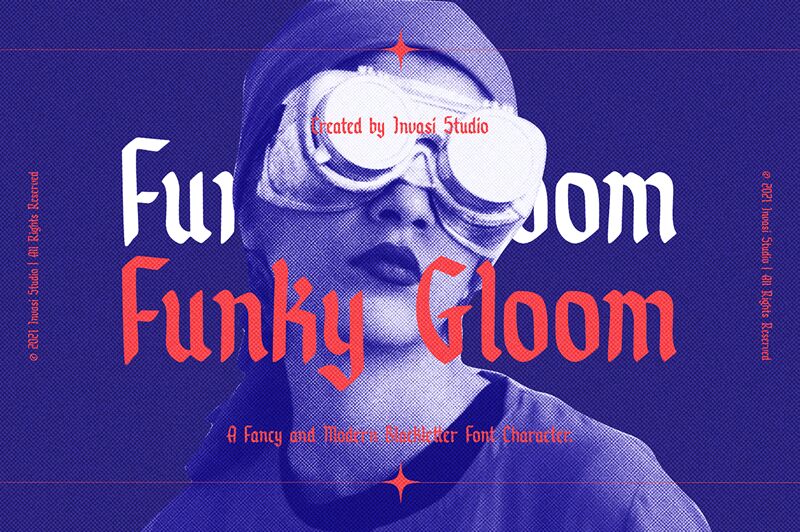
Funky Gloom, designed by Invasi Typework, is a modern gothic font that will add a touch of edginess to any project. With its semi-light weight and condensed width, this font is perfect for headlines and logos that need to grab attention. Use it on album covers for heavy metal bands or for branding horror-themed escape rooms. Its unique style also makes it suitable for clothing brands looking to stand out from the crowd. Don't settle for boring fonts - try Funky Gloom and give your designs an eye-catching edge.